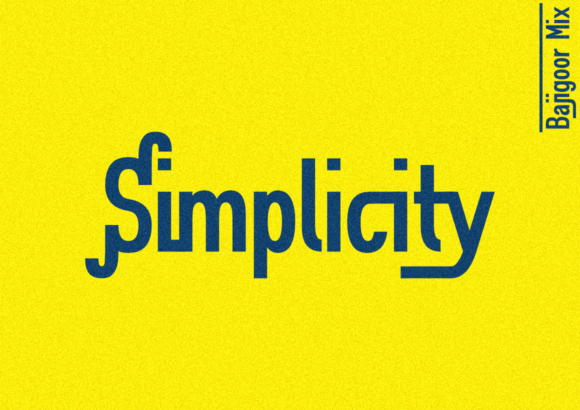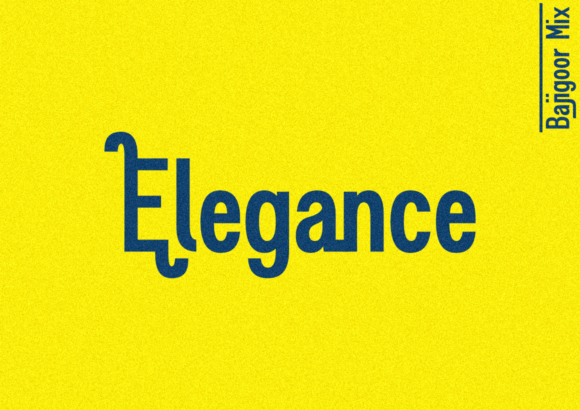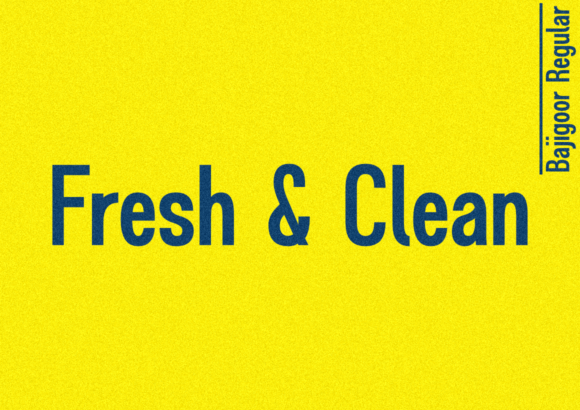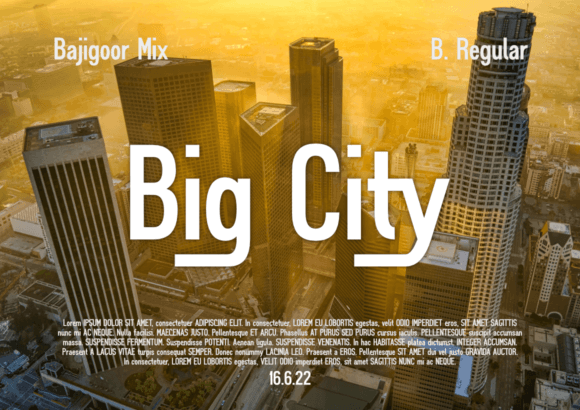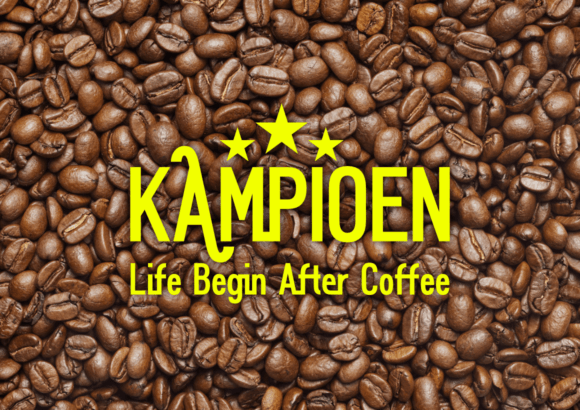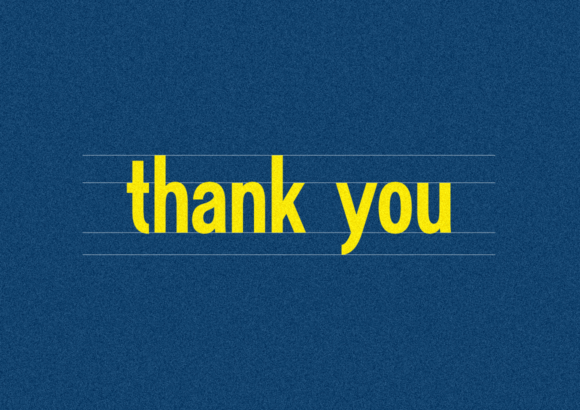
The Perfect Font for Your Creative Vision
Imagine you’re brainstorming ideas for your next big project, flipping through design inspiration boards, and stumbling upon the perfect combination of words and images that capture the essence of your brand. The excitement is palpable, and you can’t wait to bring your vision to life. In moments like these, the right font can make all the difference.
Enter the Bajigoor Mix Duo Font, a modern and extraordinary sans serif font that’s perfectly suited for traditional media and the web. With its versatility and PUA encoding, this font is a treasure trove of creative possibilities, waiting to be unleashed by crafters and graphic artists alike. Whether you’re working on inspirational wall posters, logo type, or communicating your brand, the Bajigoor Mix Duo Font is an invaluable asset that’s sure to elevate your designs to new heights.
Bajigoor Mix Duo Font Key Features
- Font Family: Bajigoor Mix Duo
- Unique Characteristics: Unique blend of modern and traditional design elements, with a mix of bold and elegant lines
Bajigoor Mix Duo Font Review
Overall, I was quite impressed with the Bajigoor Mix Duo Font. Here are some of its standout features:
- ✨ Unique and eclectic style, perfect for adding some personality to your designs.
- ✨ High legibility, making it easy to read even in smaller font sizes.
- ⚠️ Limited font pairing options, which can make it challenging to find the perfect combination for your design.
- ⚠️ Some characters may not be as stylized as others, which can create a disjointed look.
- ⚠️ The font may not be suitable for use in body text, as it can be quite busy and overwhelming.
Overall, I would recommend the Bajigoor Mix Duo Font for designers looking to add a unique touch to their branding or packaging designs. While it has some limitations, its versatility and high legibility make it a solid choice for the right project.
Getting the Most Out of Bajigoor Mix Duo Font
To get the most out of Bajigoor Mix Duo Font, use it for:
- Creating eye-catching headings and titles.
- Adding a unique touch to your branding and marketing materials.
- Designing visually appealing digital and print materials.
Alternatives to Bajigoor Mix Duo Font
Great Vibes is a modern, elegant script font designed by Handmade Type. It’s perfect for creating a sophisticated and luxurious feel in your designs. Great Vibes is ideal for wedding invitations, branding, and advertising materials.
Compared to Bajigoor Mix Duo Font, Great Vibes has a more refined and polished look, making it suitable for high-end designs. It’s also more versatile and can be used for both digital and print media.
Amarillo Font
Amarillo is a beautiful, handwritten font that exudes a sense of playfulness and creativity. It’s perfect for designs that require a touch of whimsy and personality. Amarillo is ideal for social media graphics, posters, and flyers.
Compared to Bajigoor Mix Duo Font, Amarillo has a more casual and laid-back feel, making it suitable for designs that require a relaxed tone. It’s also more expressive and can add a personal touch to your designs.
Playfair Display is a luxurious, high-end font that’s perfect for creating a sense of elegance and sophistication. It’s ideal for designs that require a touch of refinement and class. Playfair Display is suitable for branding, advertising, and packaging materials.
Compared to Bajigoor Mix Duo Font, Playfair Display has a more formal and sophisticated look, making it suitable for high-end designs. It’s also more versatile and can be used for both digital and print media.